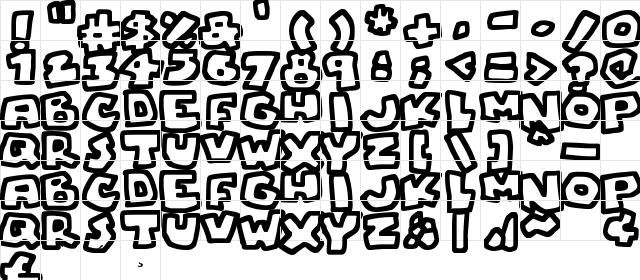
Chunky Boulder Outlines Regular
Design Context for Chunky Boulder Outlines Typeface
Chunky Boulder Outlines is built around its visual character rather than neutral utility — its distinctive forms are designed to make an impression at display sizes.
Font Pairing: Pair with a clean neutral sans-serif for body copy to let Chunky Boulder Outlines's character lead without overwhelming the composition.
Pro Tip: Use Chunky Boulder Outlines exclusively at display sizes — it was designed to be seen, not read at length. Let a neutral companion handle body copy.